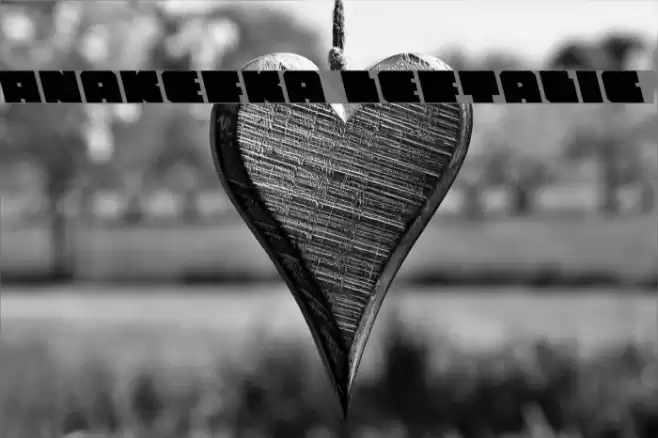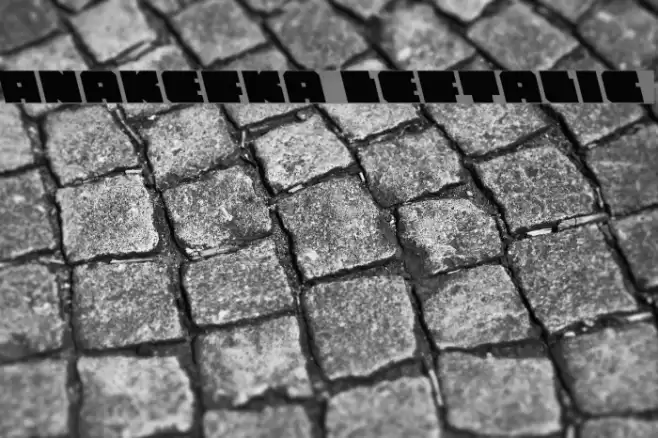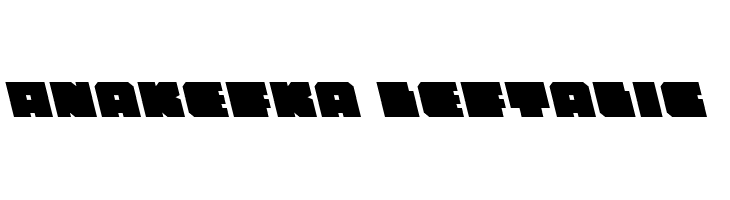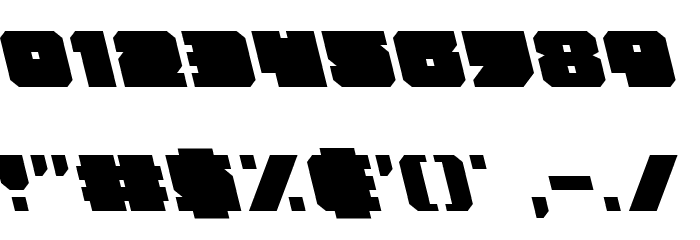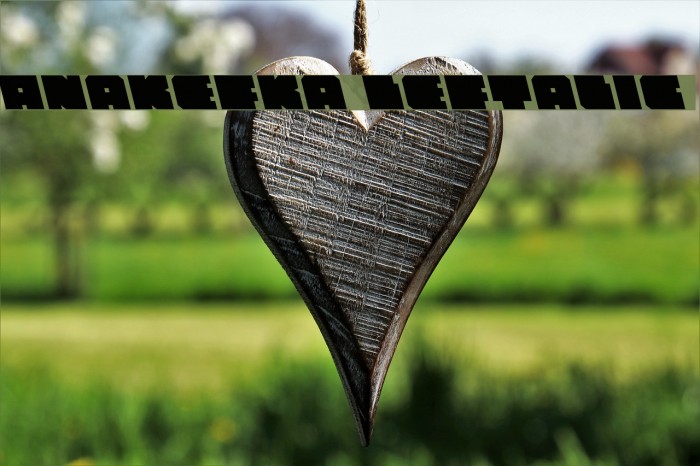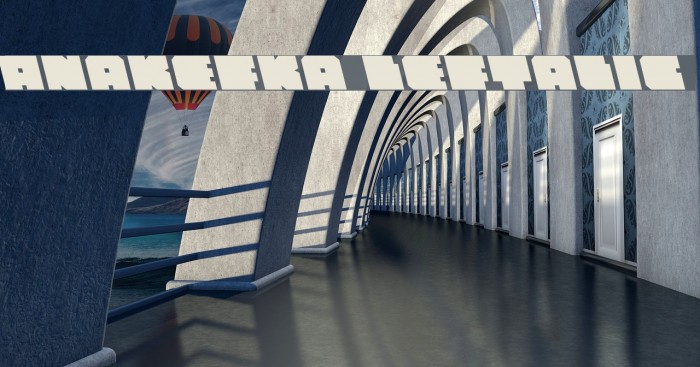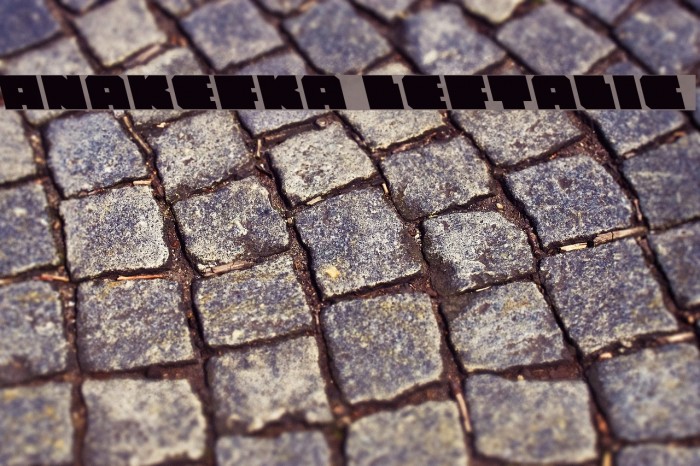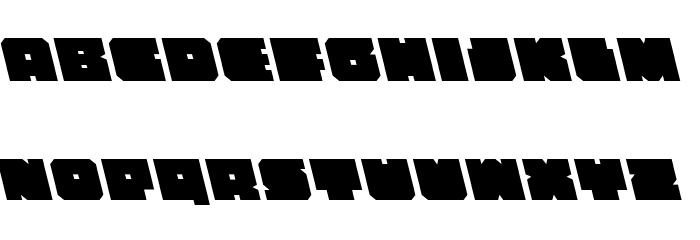
Anakefka Leftalic Font
Anakefka Leftalic Description
This bold and striking font features a strong geometric design with a distinct leftward slant, giving it a dynamic and forward-moving appearance. The characters are blocky and robust, with sharp angles and a solid presence that commands attention. The uppercase and lowercase letters maintain a consistent style, with the lowercase slightly smaller but equally bold. The numbers and special characters follow the same design principles, ensuring uniformity across all elements. The font's heavy weight and unique style make it ideal for impactful designs where boldness is key.
A bold, geometric font with a leftward slant and strong visual impact from Uncategorized fonts.
- Proposed Projects: Ideal for posters, logos, and branding projects that require a bold and dynamic presence.
- Character Spacing: Tight